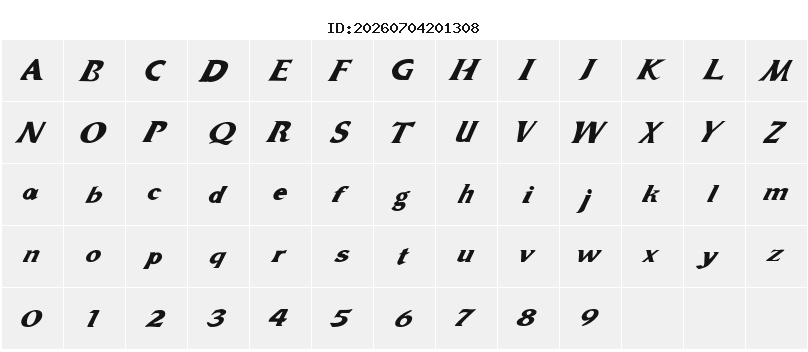
Dr. Peppers Preview
• Font Name: Dr. Peppers
• Full Font Name: Dr. Peppers
About Dr. Peppers.ttf
Dr. Peppers.ttf is a modern, elegant sans-serif font designed for ultimate readability and visual harmony. Perfect for branding, headlines, web design, and print materials.